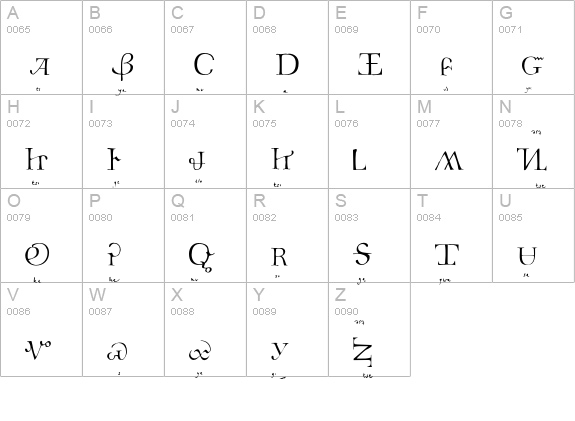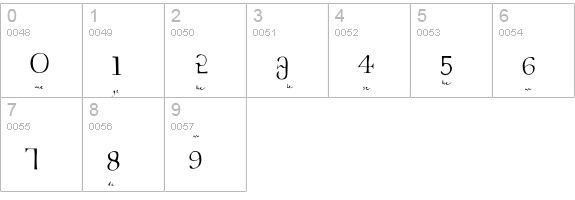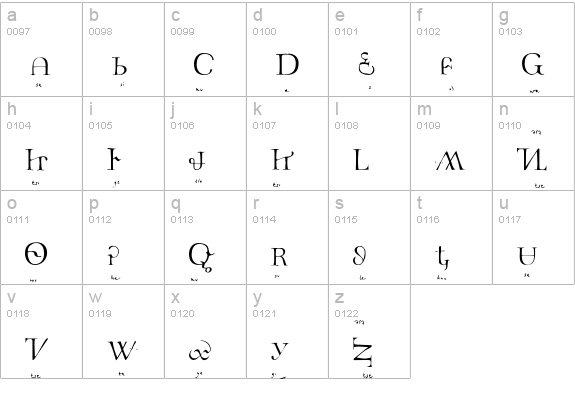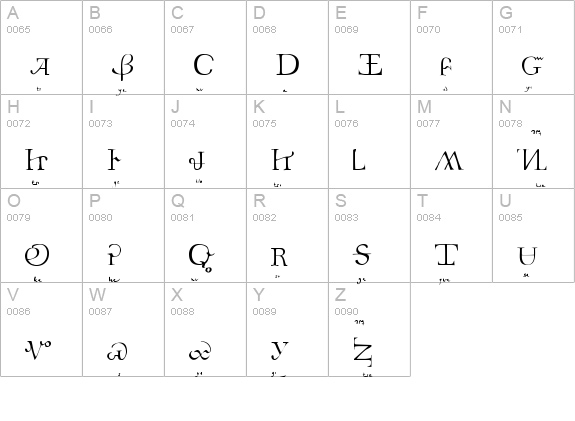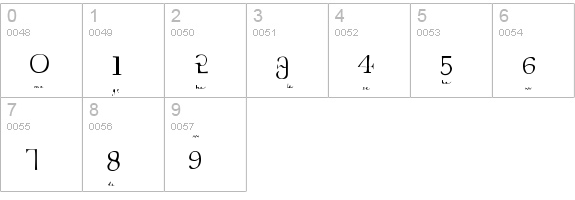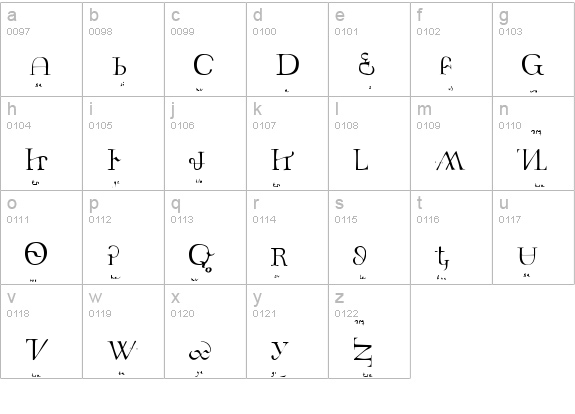
SubluxationBland Font Details
SubluxationBland font is a stunning display typeface that exudes elegance and sophistication. With its unique blend of delicate curves and sharp angles, this font is perfect for adding a touch of modernity to any design project. Whether you're creating a logo, poster, or branding materials, SubluxationBland font will surely make your text stand out. The best part? SubluxationBland font is completely free to download at FontsMarket.com. So go ahead and elevate your designs with this eye-catching and versatile typeface.